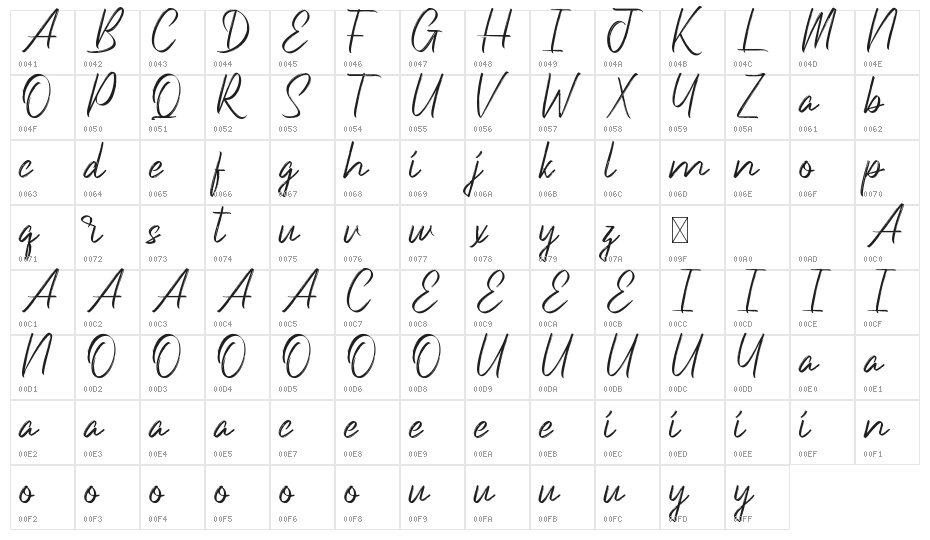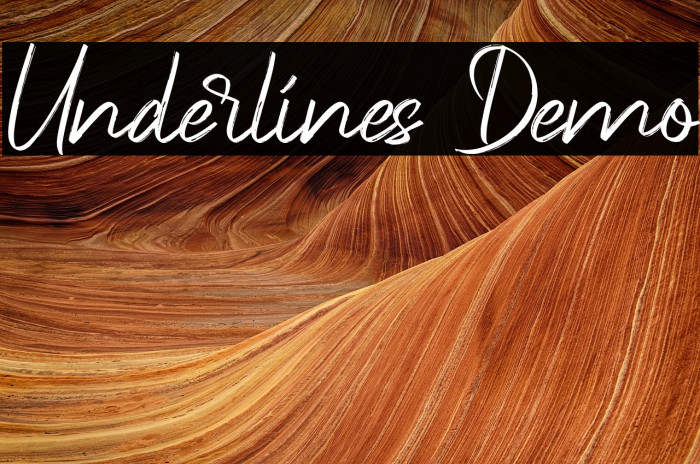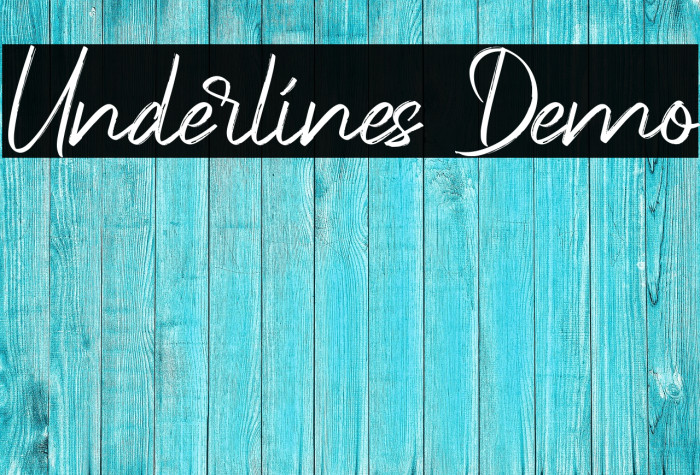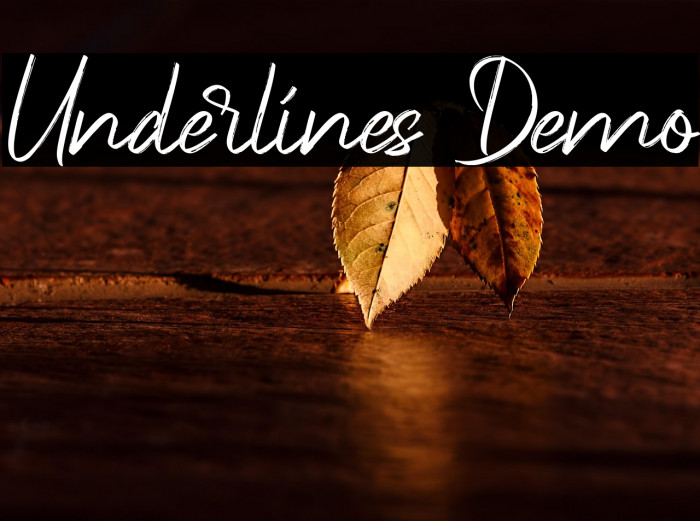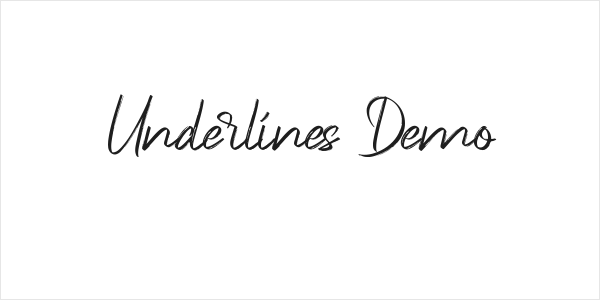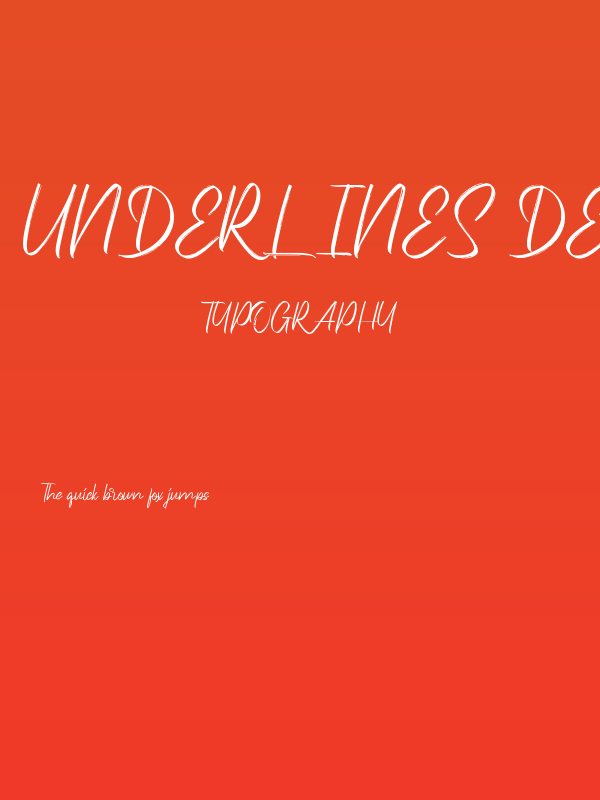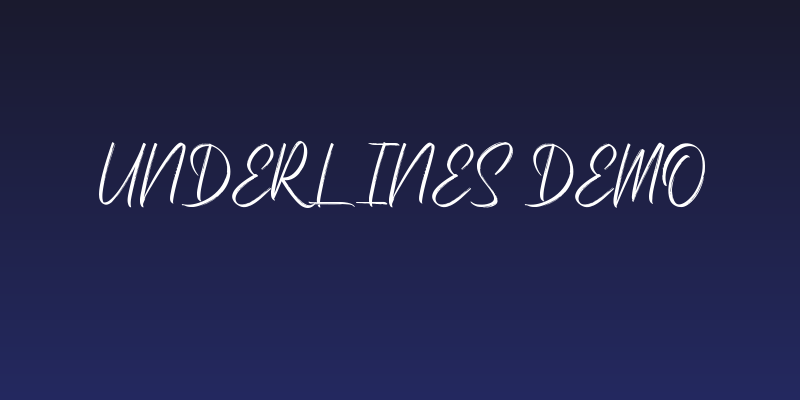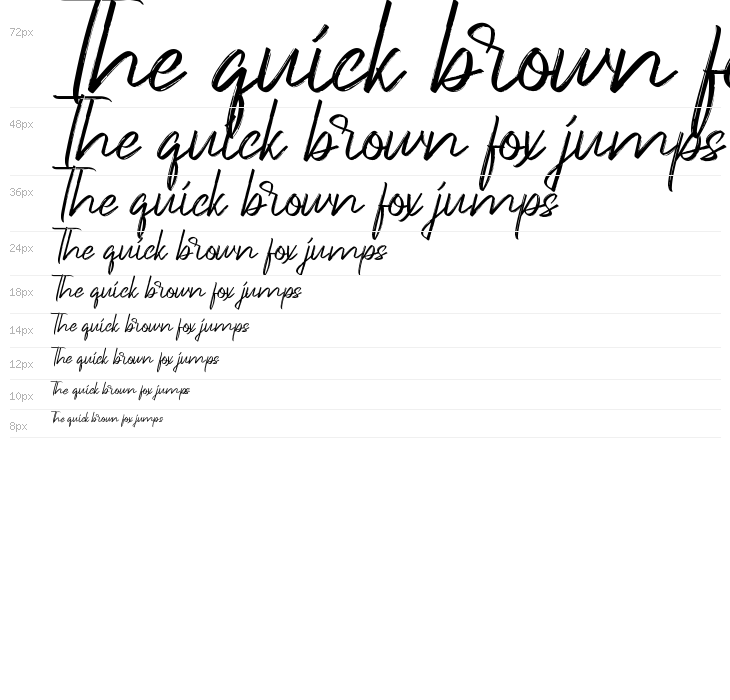
Underlines Demo Font
Underlines Demo Description
This font features a dynamic and expressive handwritten style, characterized by its fluid and flowing letterforms. The strokes are slightly slanted, giving it a casual yet elegant appearance. The uppercase and lowercase letters maintain a consistent style, with smooth curves and a natural rhythm. The font includes a full set of numerals and a selection of special characters, all designed with the same lively and energetic feel. The overall look is both modern and artistic, making it suitable for creative and informal applications.
| Proposed Projects | Ideal for wedding invitations, greeting cards, personal branding, and artistic projects. |